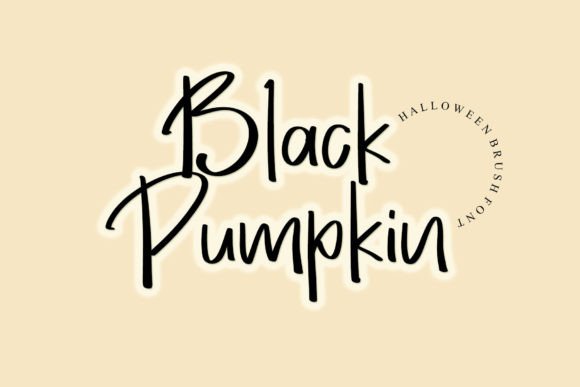
The Ultimate Guide to Black Pumpkin Font: A Fun and Quirky Handwritten Typeface
An Honest Review of Black Pumpkin Font
What I Love About Black Pumpkin ✨
- ✨ Unique and quirky design: Black Pumpkin has a one-of-a-kind personality that adds a touch of whimsy to any design.
- ✅ Highly versatile: This font is perfect for logos, quotes, posters, clothing, and so much more!
- 🎉 Easy to read: Despite its playful design, Black Pumpkin is surprisingly easy to read, even in smaller sizes.
- 💻 Great for digital and print use: This font works beautifully both on screen and in print, making it perfect for a wide range of applications.
- ⚠️ Limited use in formal designs: Black Pumpkin’s playful personality might not be suitable for very formal or professional designs.
- 🤔 Some letters may require manual kerning: As with any font, you might need to adjust the kerning of certain letters to achieve the perfect look.
One of the best things about Black Pumpkin font is its OpenType features and glyphs. With a range of stylistic alternates, ligatures, and swashes, you can add a touch of personality to your design. For example, you can use:
- Ligatures to connect letters and create a more fluid look.
- Stylistic alternates to change the look of certain letters or numbers.
- Swashes to add a touch of elegance or whimsy to your design.
The Backstory of Black Pumpkin Font
According to the designer, Black Pumpkin font was inspired by the magic of Halloween. The designer wanted to create a font that captured the playful, whimsical spirit of the holiday, while also being assertive and attention-grabbing. The result is a font that’s perfect for a wide range of creative projects.
Q: Is Black Pumpkin font suitable for body text?
A: While Black Pumpkin font is easy to read, it’s best used for headlines, titles, or short paragraphs. For longer body text, you might want to choose a more traditional font.
Q: Is Black Pumpkin font available in different weights or styles?
A: Currently, Black Pumpkin font is available in a single weight. However, you can experiment with different sizes, colors, and styles to achieve the desired effect.